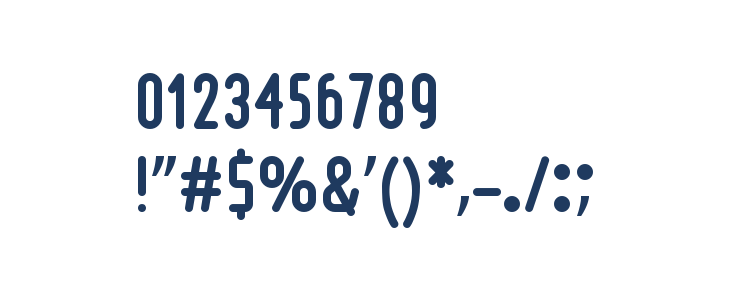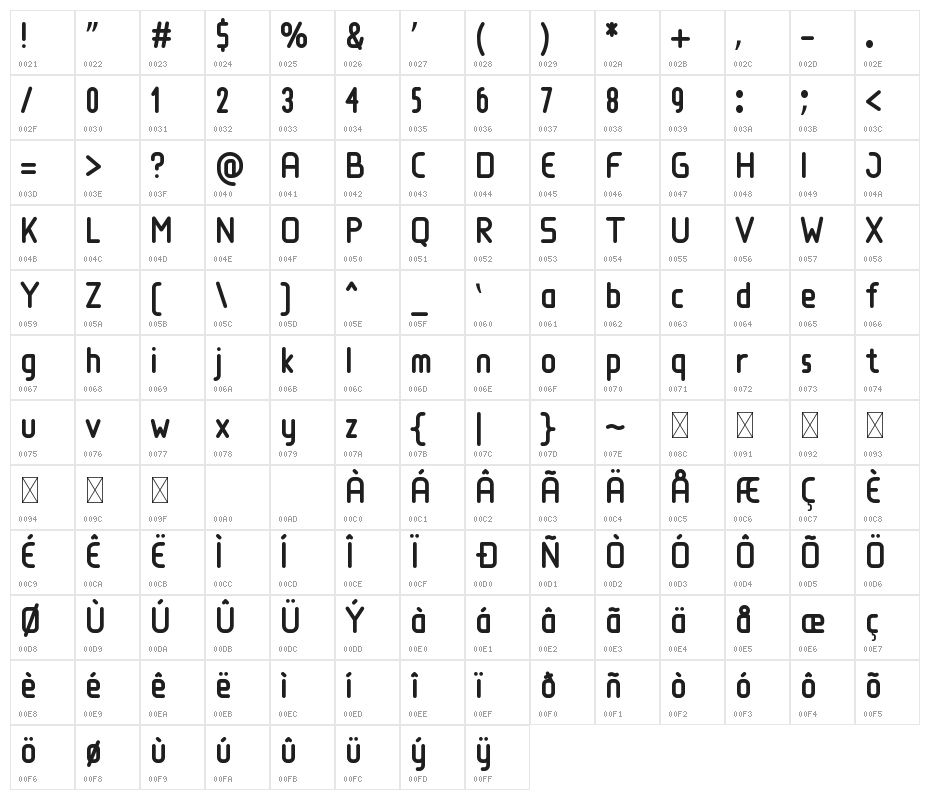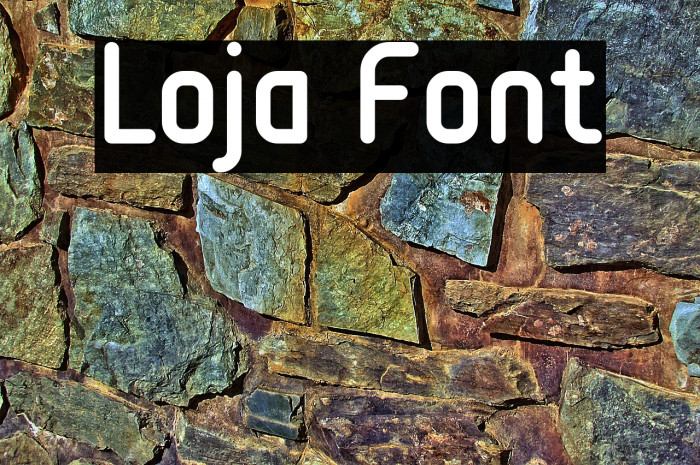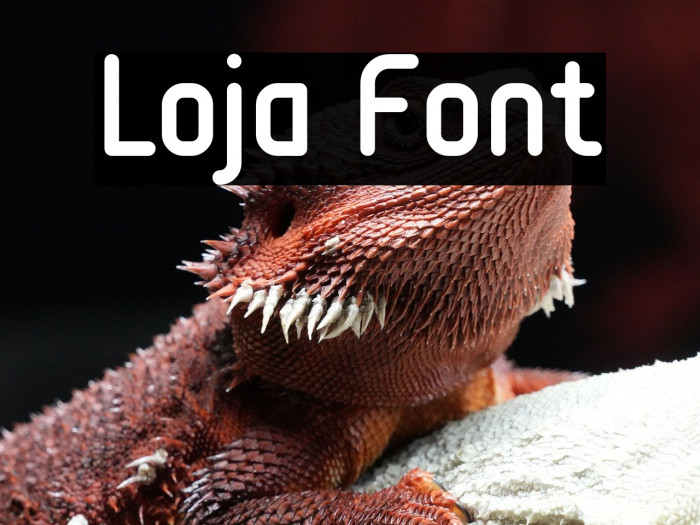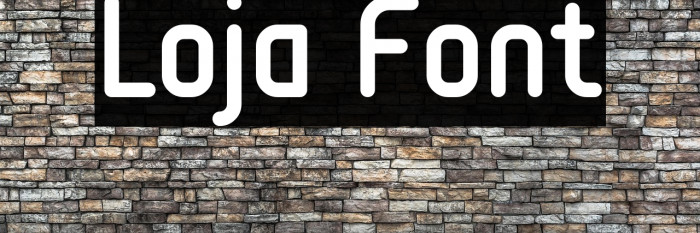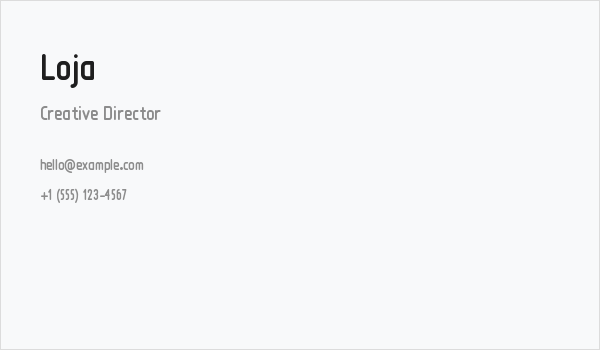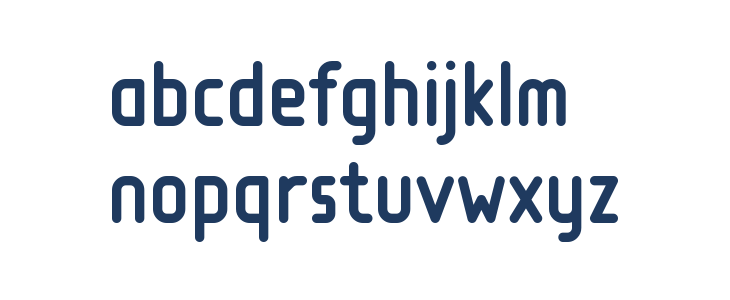
Loja Font
Loja Description
This font features a modern, rounded sans-serif style with smooth curves and a clean appearance. The characters are evenly spaced, providing a balanced and harmonious look. The uppercase letters are bold and assertive, while the lowercase letters maintain a consistent flow with slightly softer edges. The numerals are clear and legible, making them suitable for various applications. The special characters are well-integrated, maintaining the overall aesthetic of the font. This font's design is versatile, making it ideal for both digital and print media.
| Use Case | Headlines, Body text, Logos |
| Proposed Projects | Ideal for branding, advertising, web design, and user interfaces due to its clean and modern appearance. |